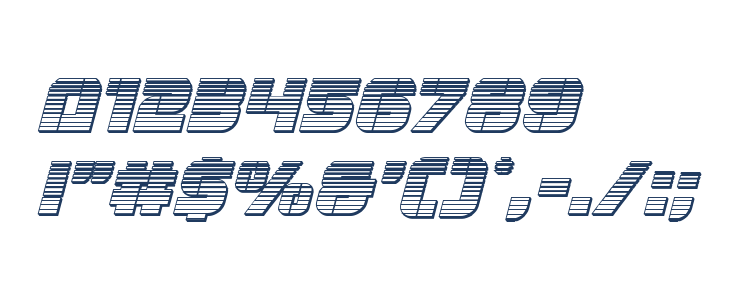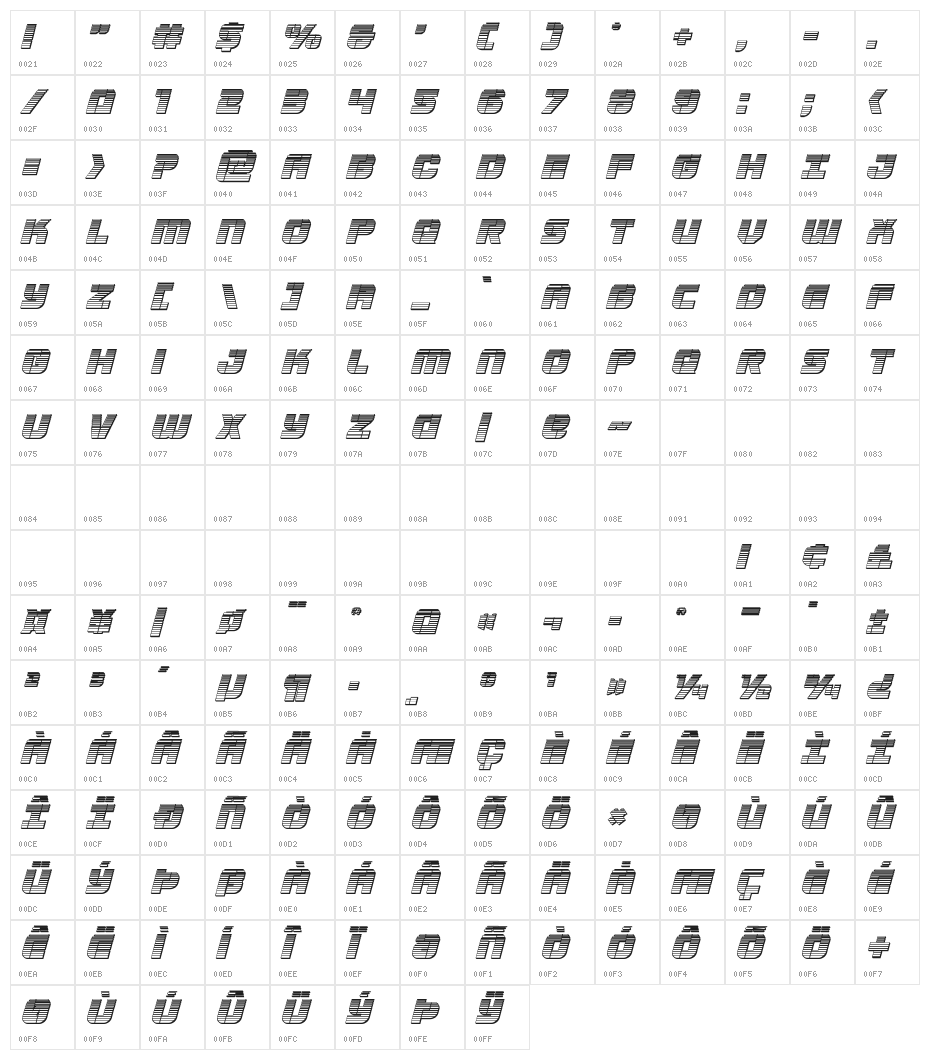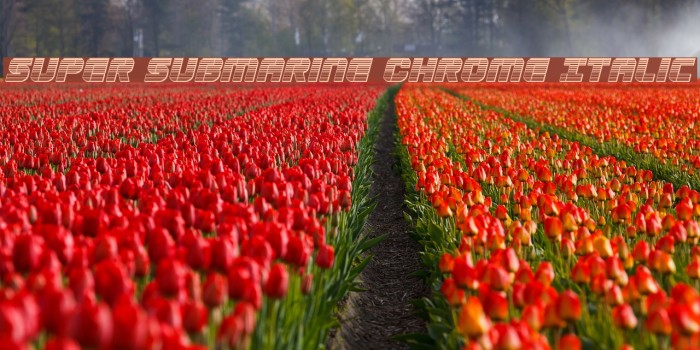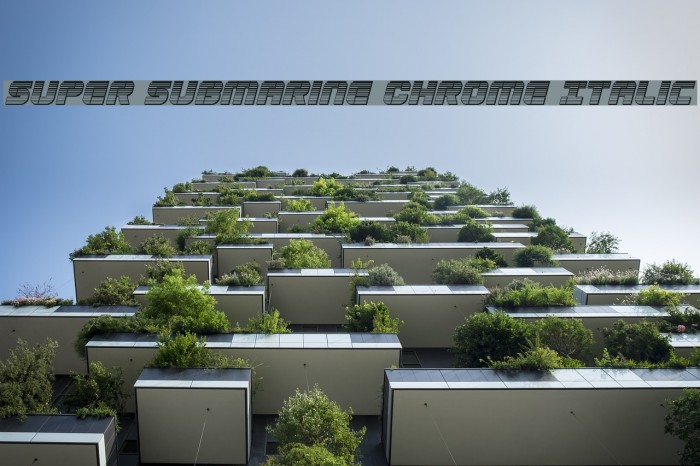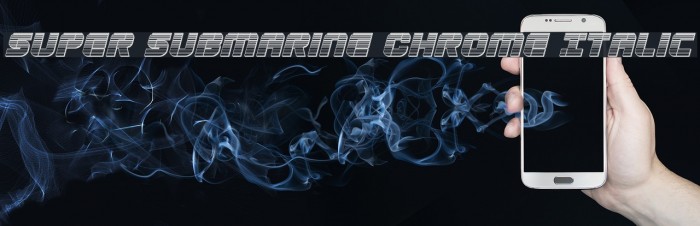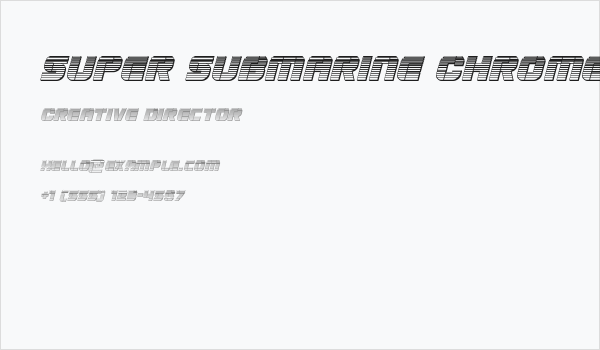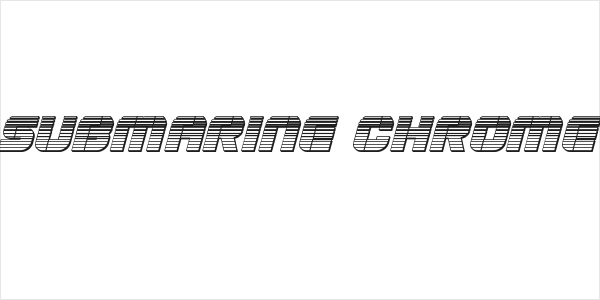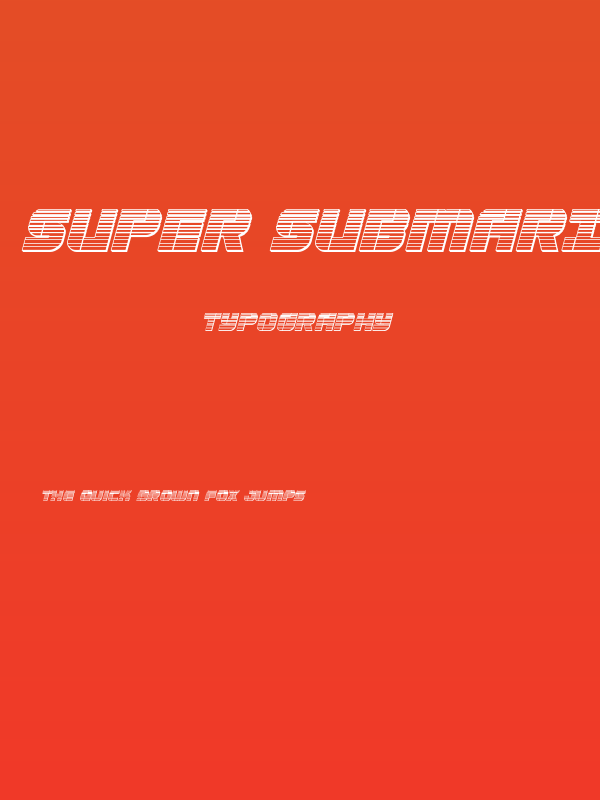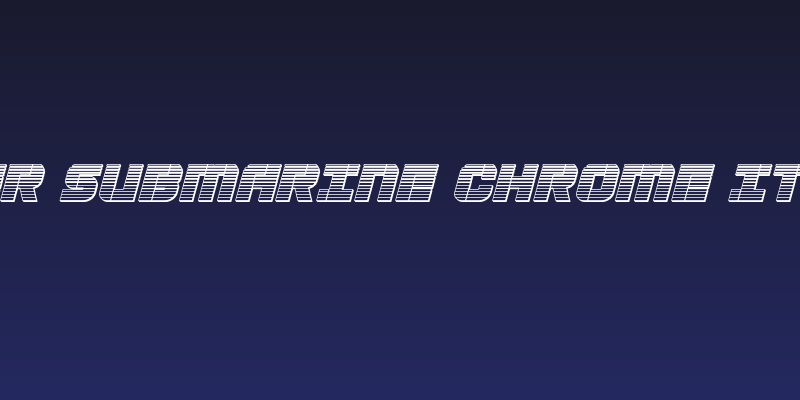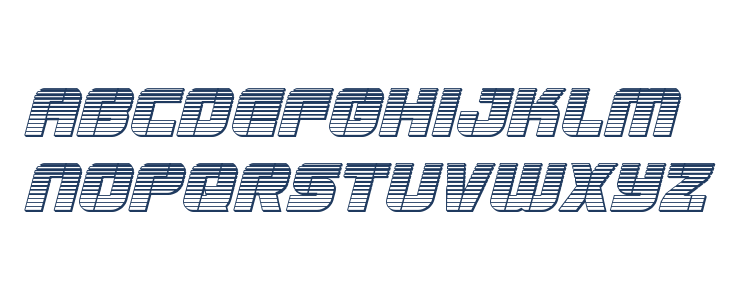
Super Submarine Chrome Italic Font
Super Submarine Chrome Italic Description
This font features a bold, futuristic design with a distinct chrome-like appearance. The characters are constructed with horizontal lines that create a sense of movement and depth, giving it a three-dimensional effect. The italic slant adds dynamism, making it suitable for projects that require a modern and edgy look. The uppercase and lowercase letters maintain a consistent style, while the numerals and special characters complement the overall aesthetic. This font is ideal for creating eye-catching headlines, logos, and posters that demand attention.